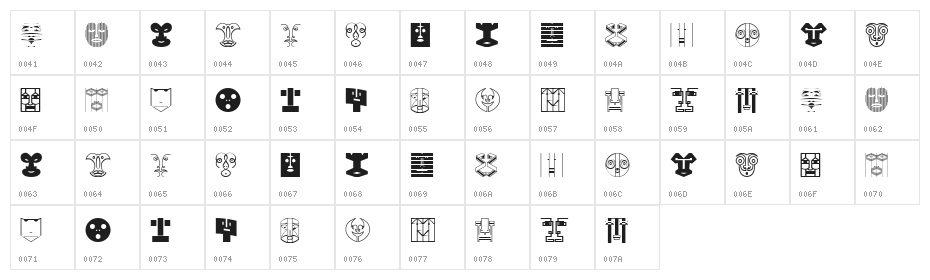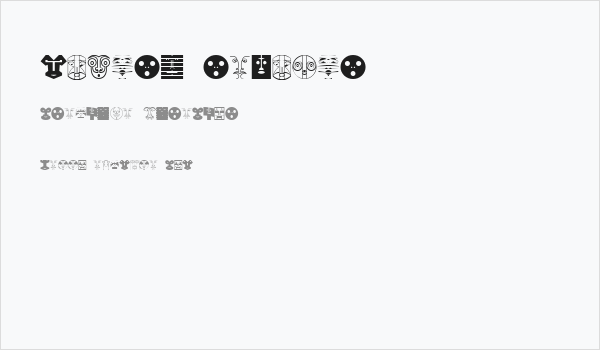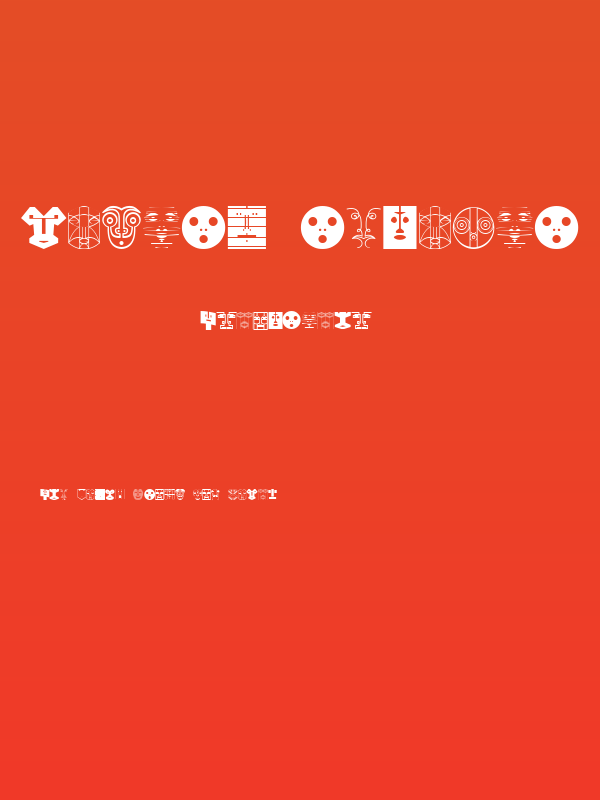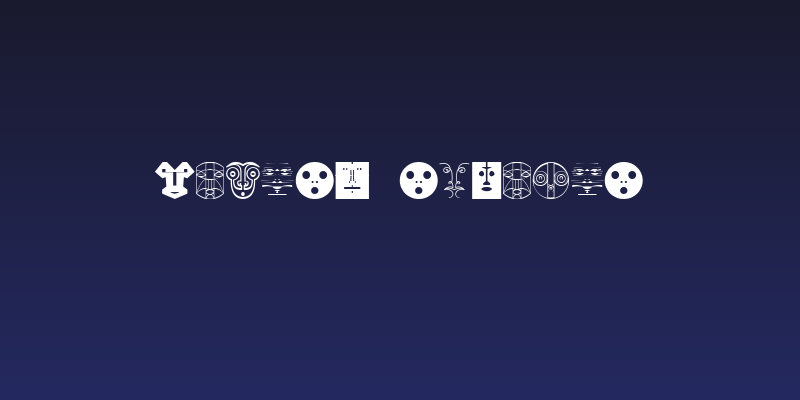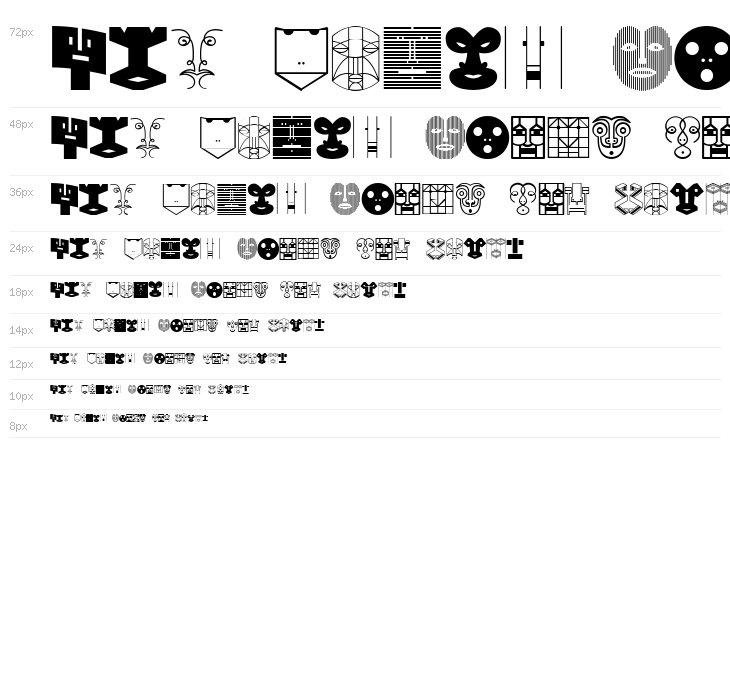
Munari Regular Font
| Область применения | Logos, Posters, Artistic Projects |
| Рекомендуемые проекты | Ideal for artistic projects, posters, album covers, and creative branding that seeks a unique and unconventional look. |